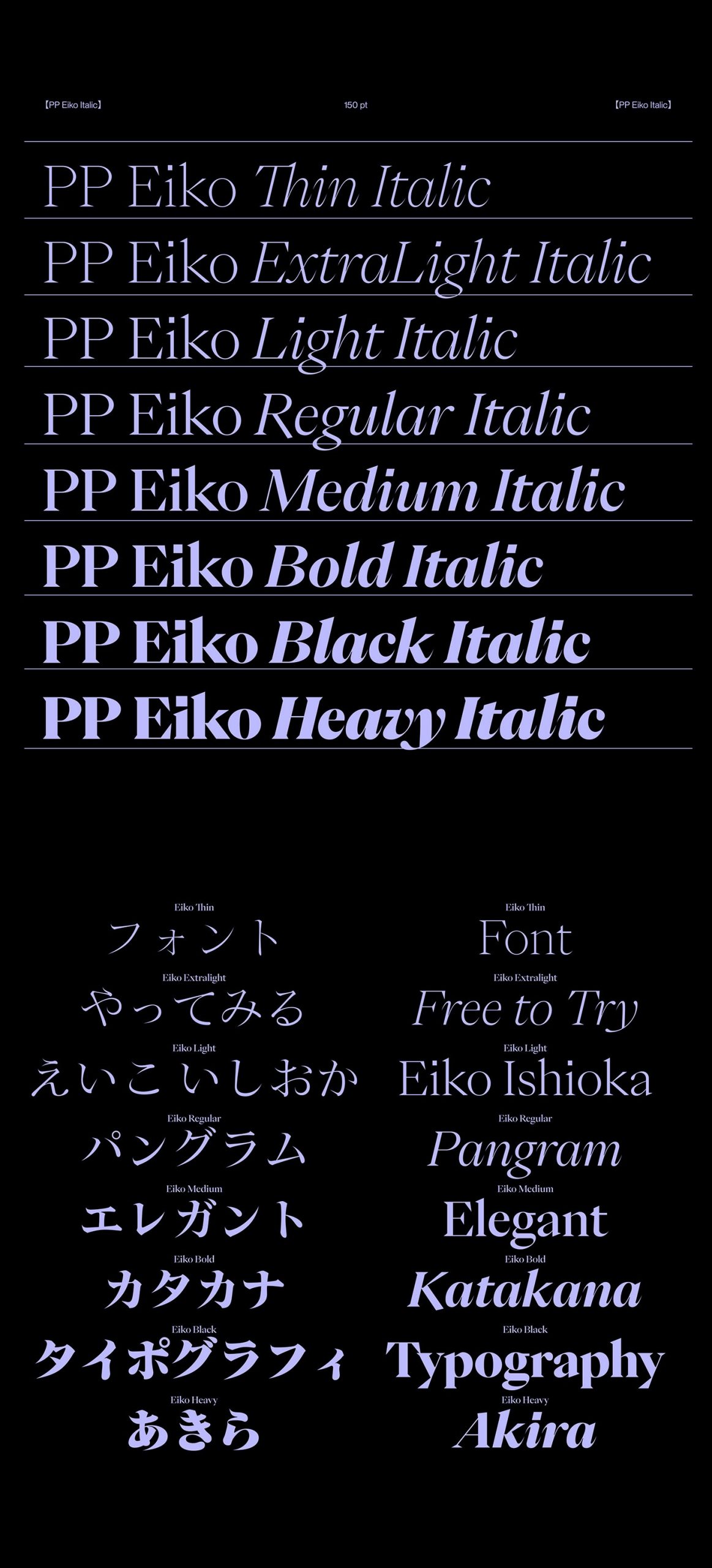
Eiko v2.0 Serif Font
It’s an elegant modern classic serif font Family. Eiko is inspired by the Work of Eiko Ishioka, a multitalented Japanese artist, this typeface seeks to comey the same aspect of her work in these typographic explorations. It is an original serif font with high contrast, including the syllable alphabet kana, hiragana + katakana, it is ideal to pair with Other kanji fonts Of the Japanese mincho style.
Its resources include a large repertoire of Japanese punctuations, stylistic sets with circular and square numbers, vertical written, subscript and superscript numbers, mathematical symbols, meteorologieal symbols, ligatures, and many alternates. And now “ith full Italics and Educational Kanjis!